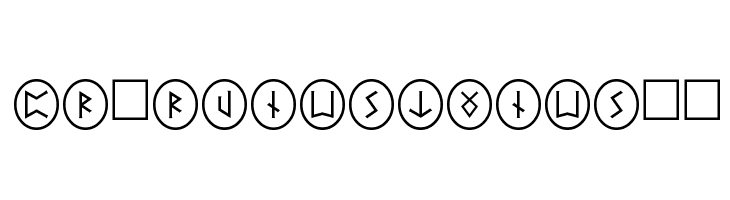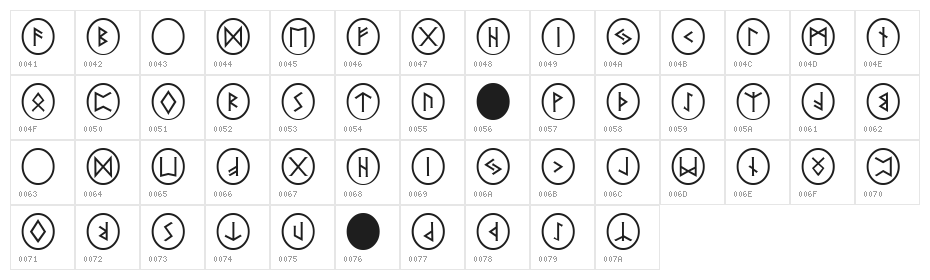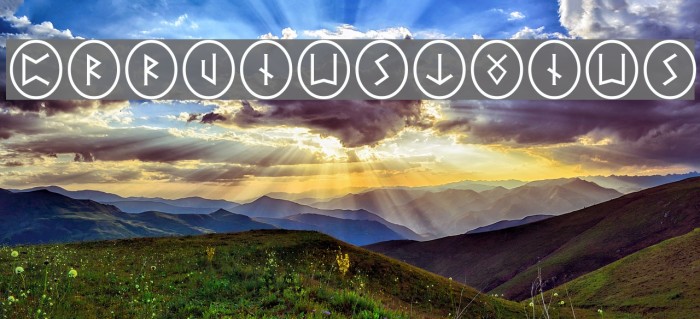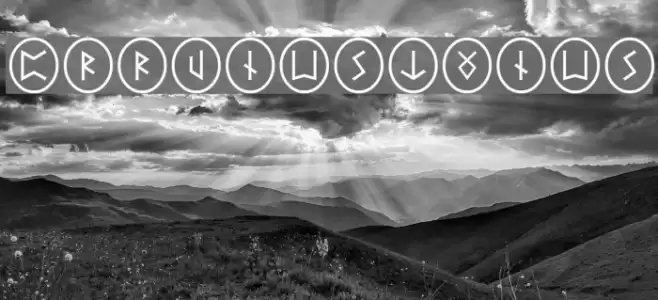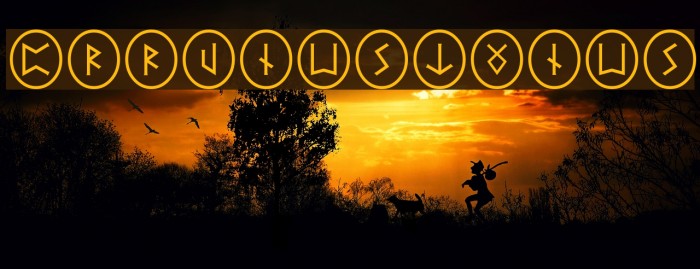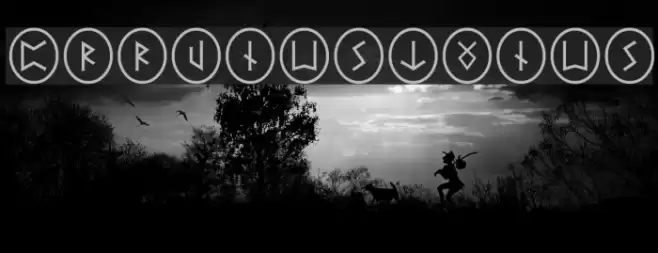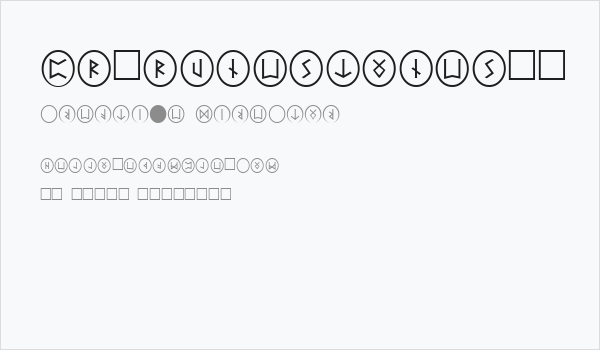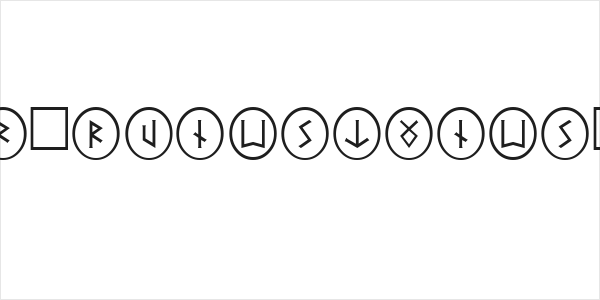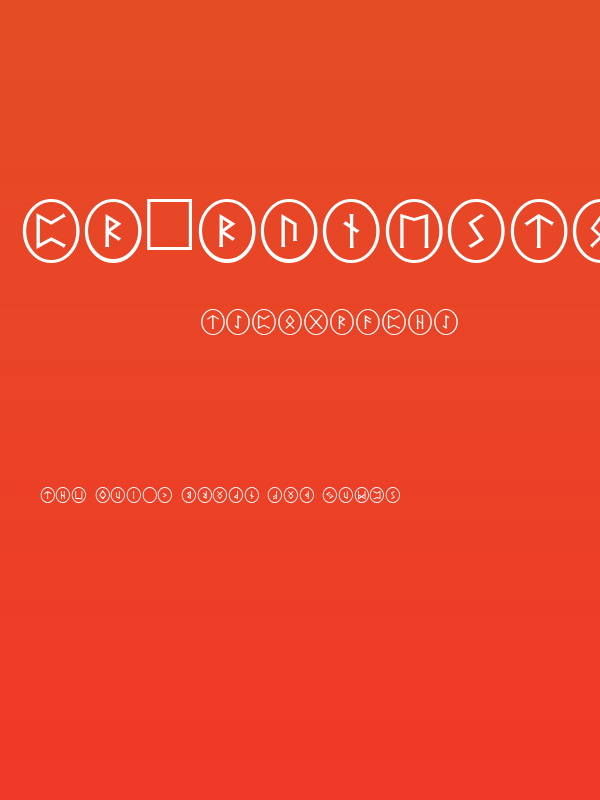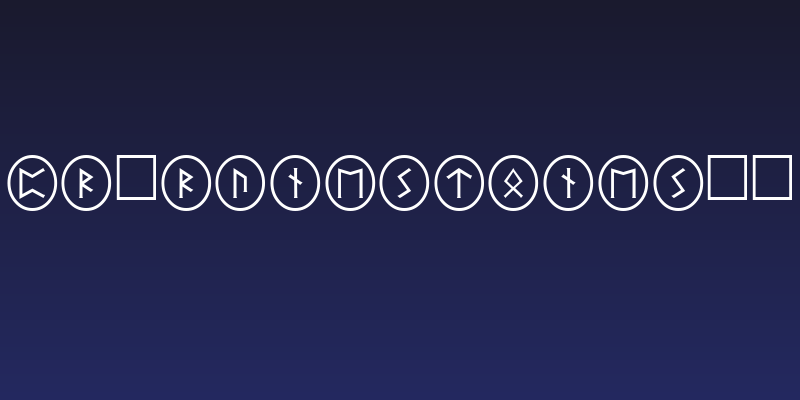
PR_Runestones_2 Font
PR_Runestones_2 Description
This font is inspired by ancient runic alphabets, featuring characters enclosed within circles, reminiscent of mystical symbols. Each letter is designed with angular, geometric lines that evoke a sense of history and mystery. The font lacks traditional alphabetical order and includes unique symbols that suggest a connection to ancient scripts. The characters are evenly spaced within their circular boundaries, creating a uniform appearance. The overall aesthetic is decorative and thematic, ideal for projects that require a touch of the arcane or historical intrigue.
| Use Case | Logos, Posters, Themed Events |
| Proposed Projects | Ideal for fantasy-themed projects, historical recreations, game design, or any creative work requiring a mystical or ancient aesthetic. |